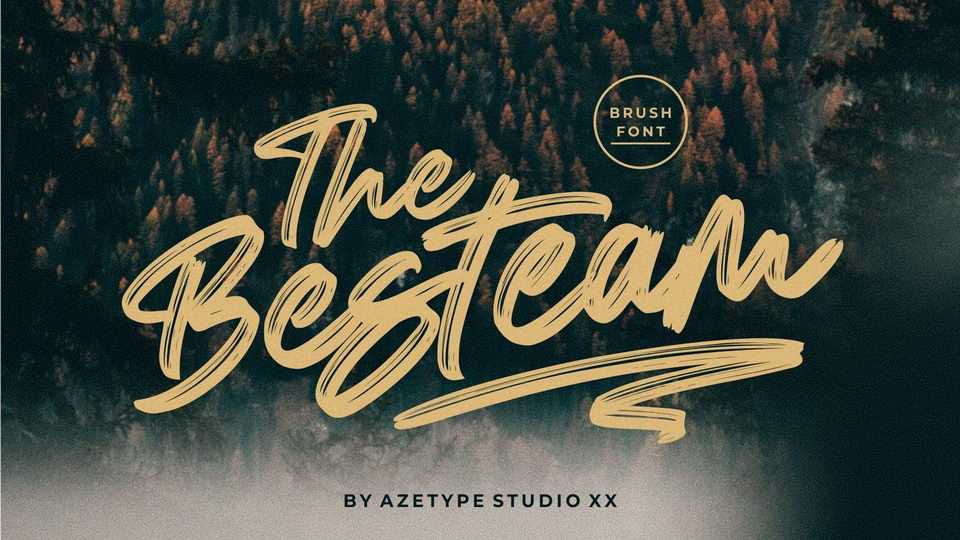
Download Besteam font, a striking brush typefacemade with the perfect combining of each character. Besteam looks original and can be used for all your project needs.
Designer: Azetype Studio